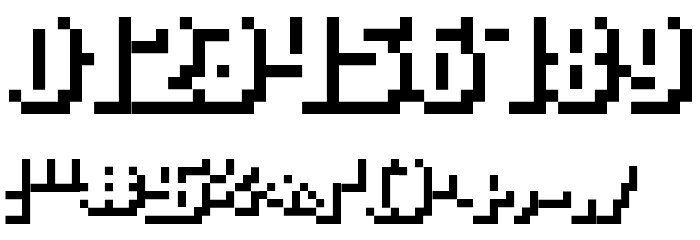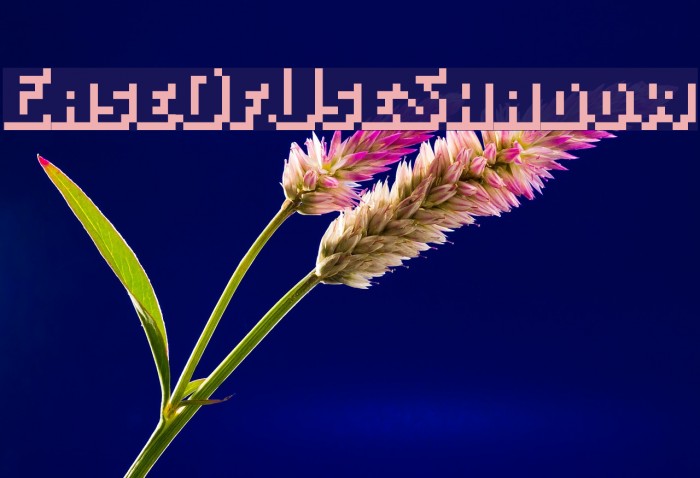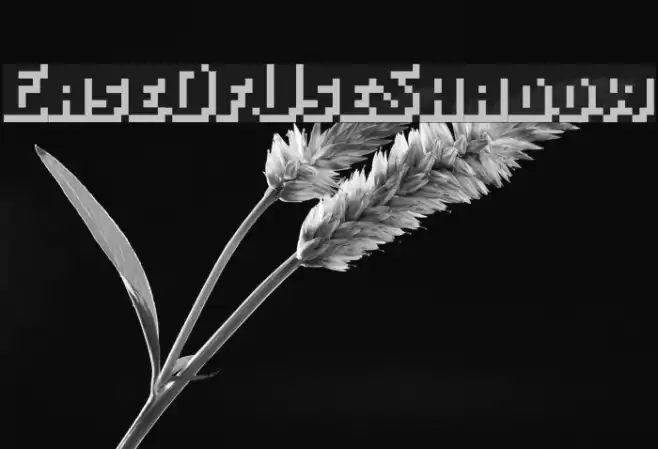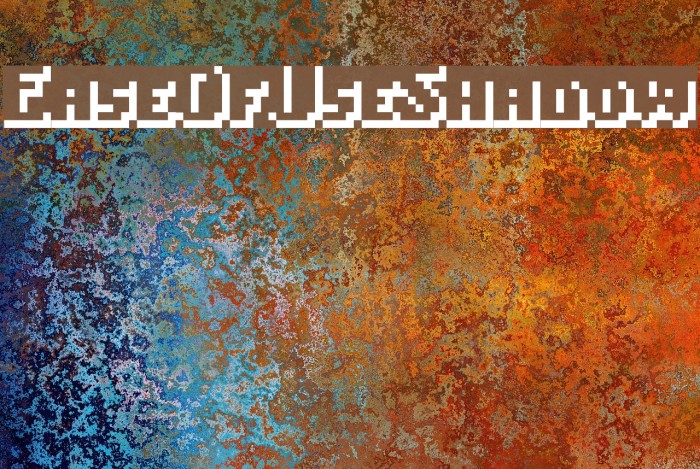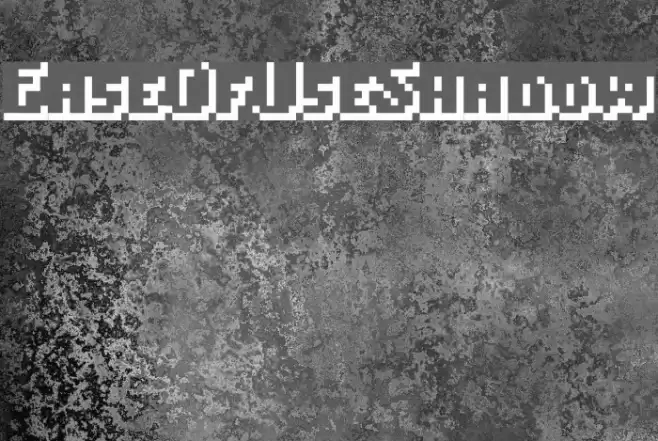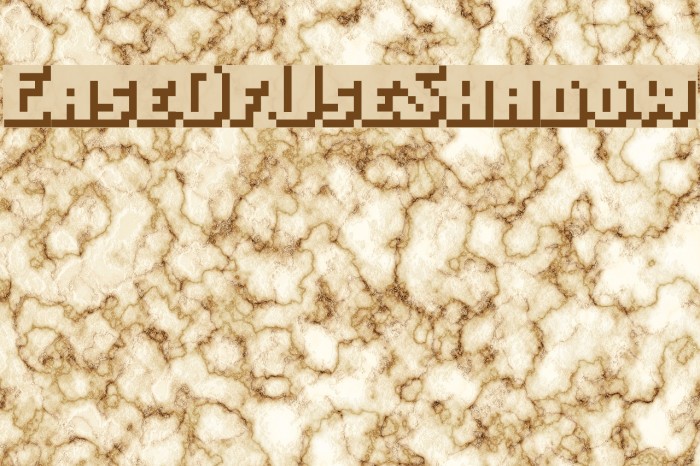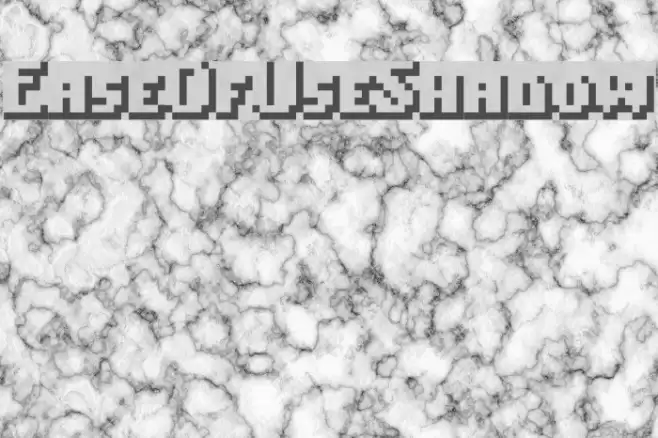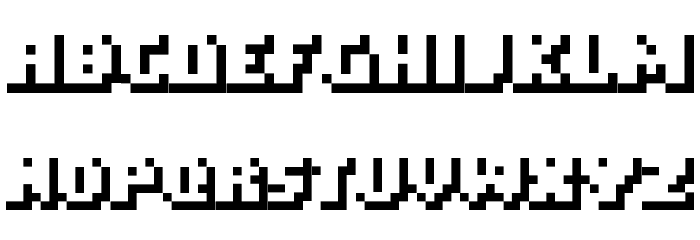
EaseOfUseShadow Font
EaseOfUseShadow Description
This font features a bold, pixelated style reminiscent of early digital displays and retro video games. Each character is composed of blocky, square shapes that give it a distinctly digital appearance. The uppercase and lowercase letters maintain a consistent height, contributing to a uniform look. The numbers and special characters follow the same pixelated design, ensuring visual cohesion across all glyphs. This font's geometric simplicity and nostalgic charm make it ideal for projects that aim to evoke a sense of retro digital aesthetics.
| Overall Style | Retro, Digital |
| Use Case | Logos, Headlines, Posters |
| Proposed Projects | Ideal for retro video game designs, digital art projects, or any creative work seeking a nostalgic digital aesthetic. |